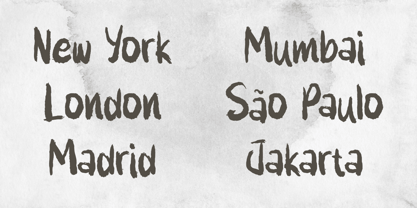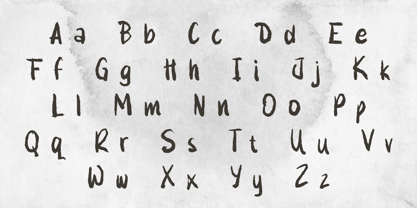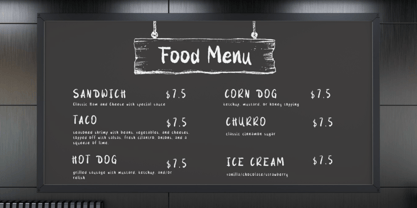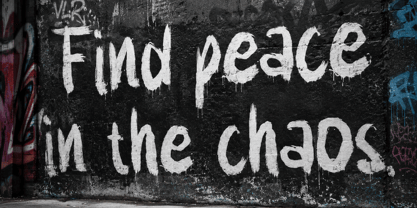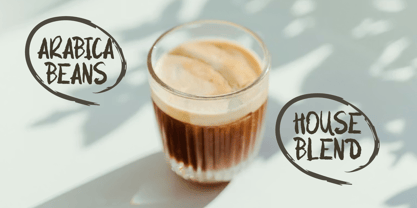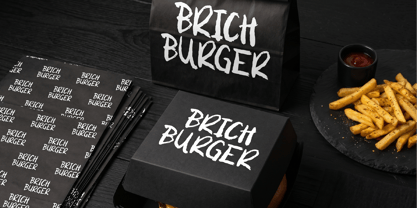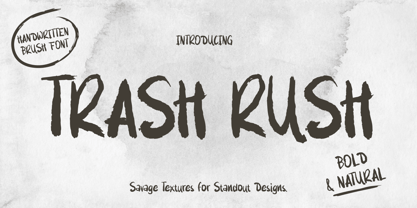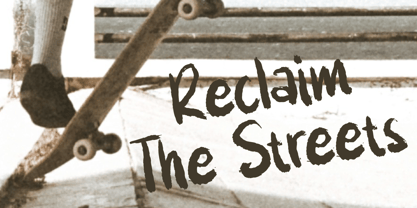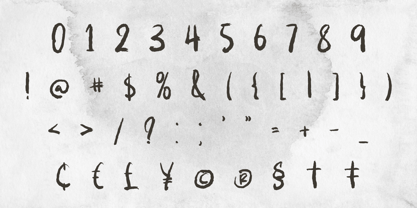
Trash Rush
by Rvandtype
The Trash Rush Font Family was designed by Randi Irvan and published by Rvandtype. Trash Rush contains 1 styles. More about this family
Unleash raw energy and authentic character in your designs with Trash Rush — a bold, textured handwritten brush font specifically crafted for standout creative work. Built from genuine brushstrokes, each character embodies natural roughness and organic imperfection, infusing every layout with vibrancy. Ideal for applications such as craft packaging, music posters, food branding, and social media content, Trash Rush provides the visual impact your project needs.
Designers: Randi Irvan
Foundry: Rvandtype